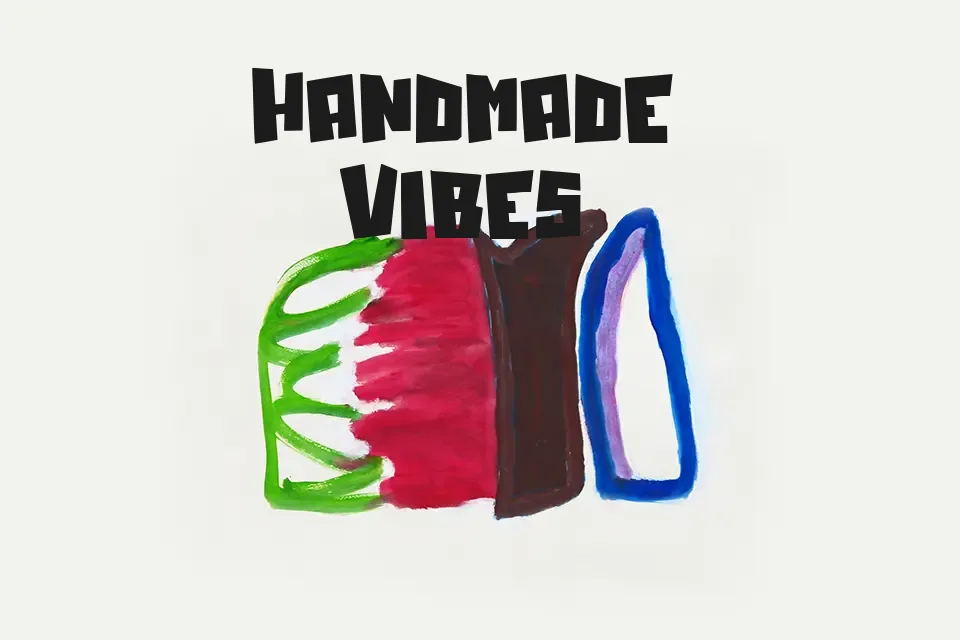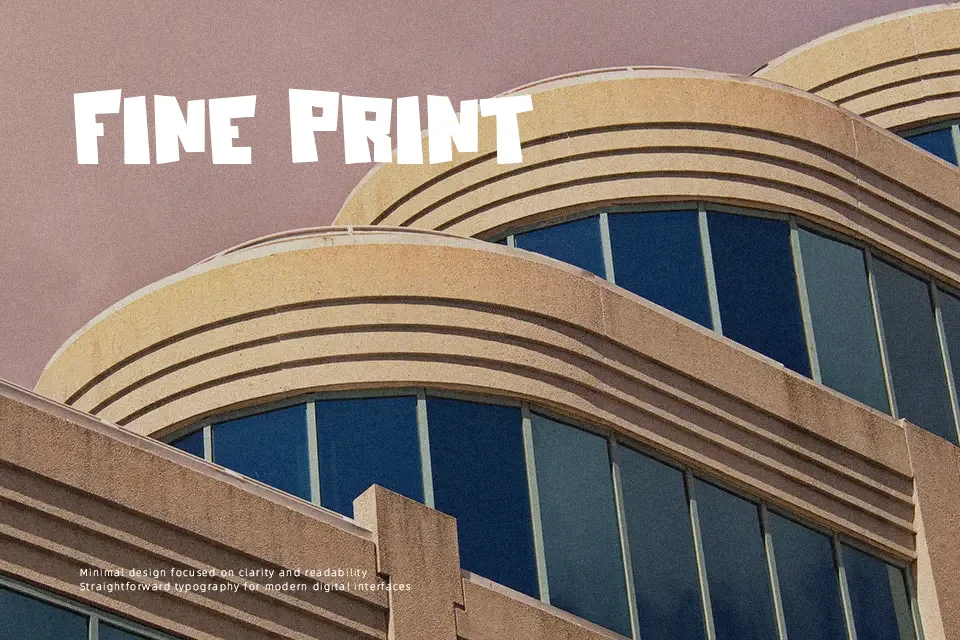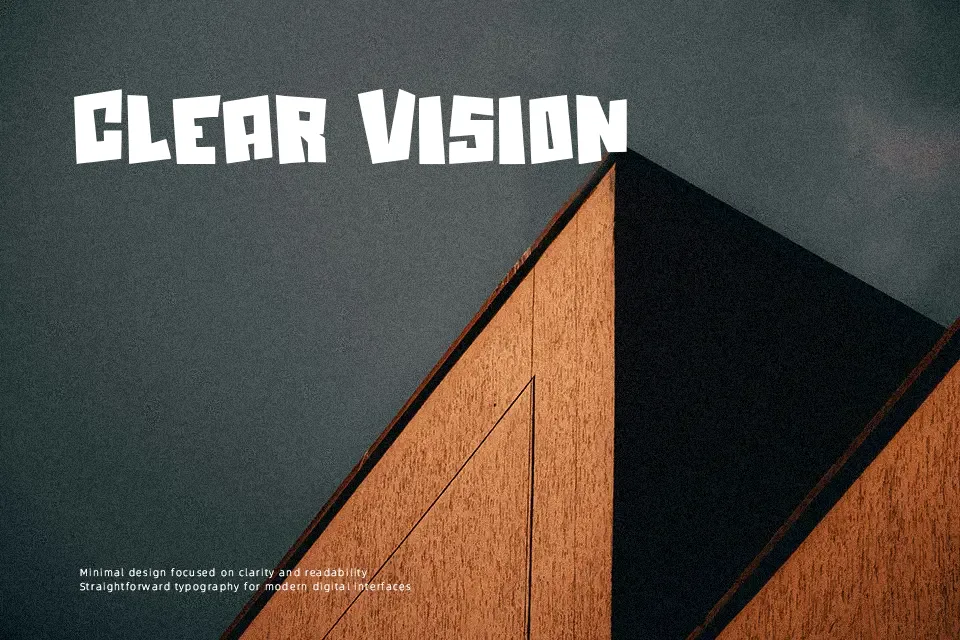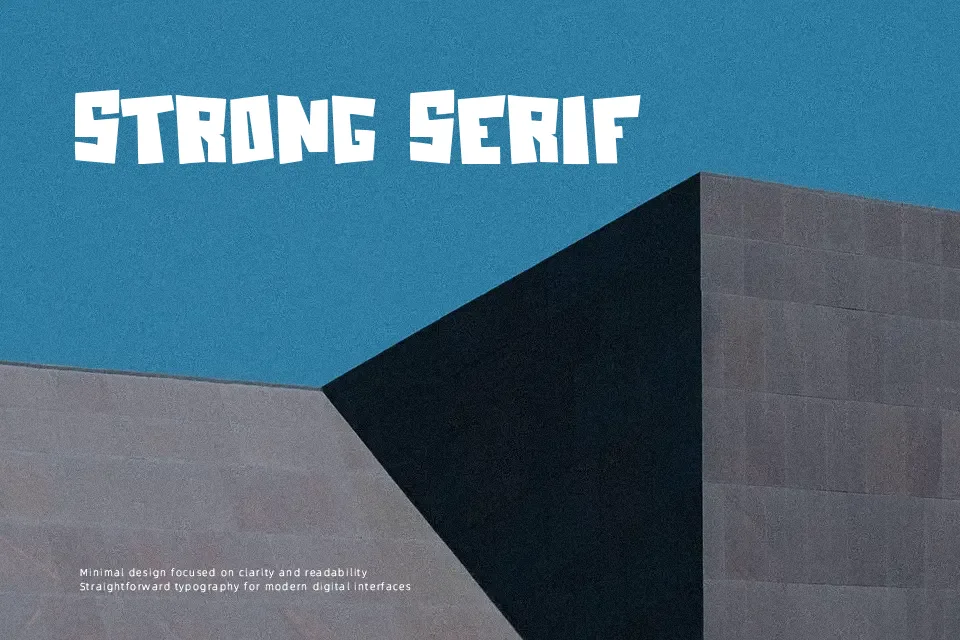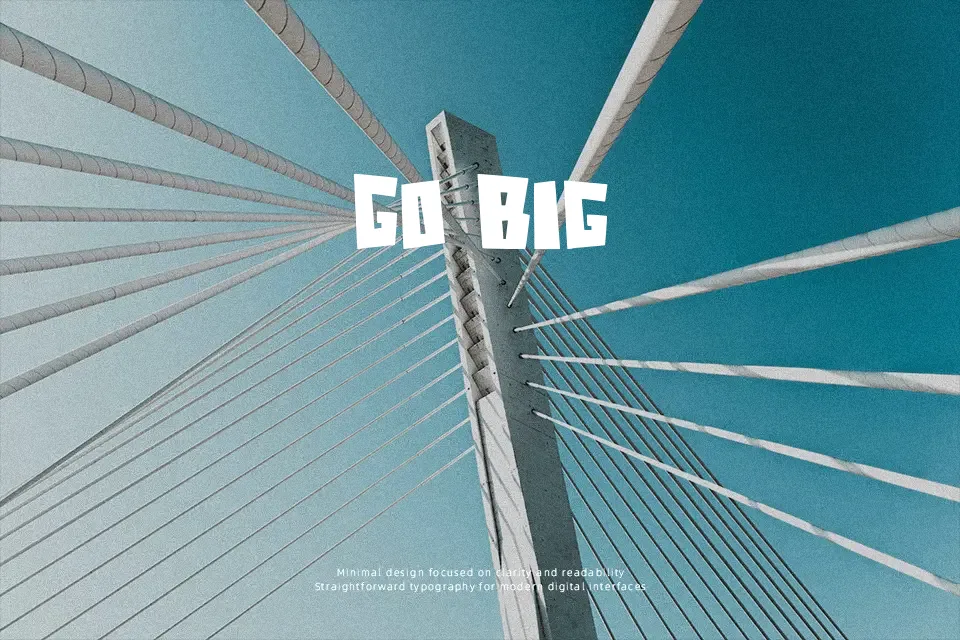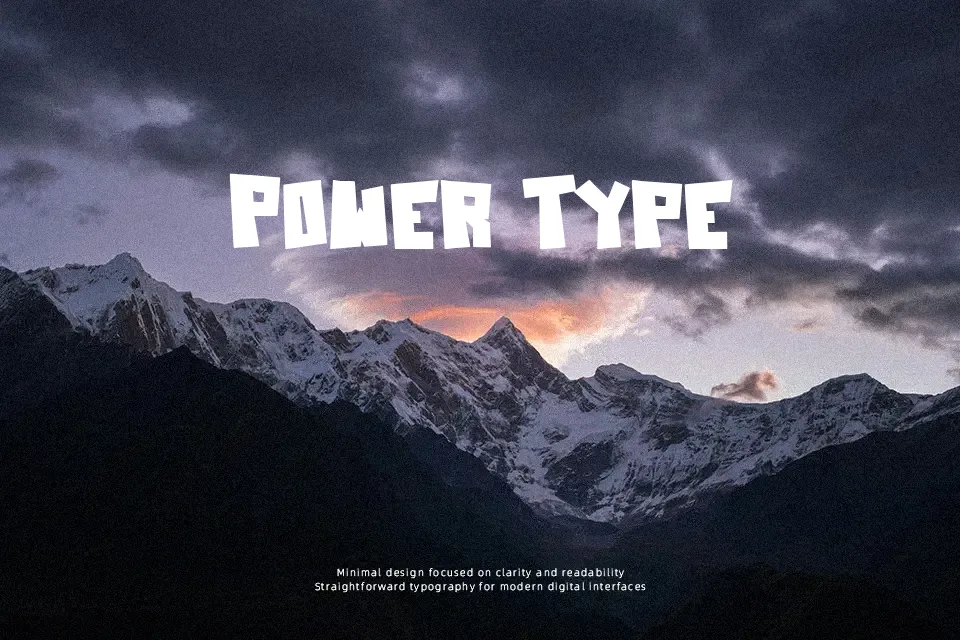
Santa Day Font
Santa Day Font features bouncy, hand-drawn letterforms defined by heavy stroke weights, softened corner joins, and charmingly uneven proportions. Character spacing remains relatively compact, creating a cohesive visual rhythm that enhances readability in prominent headline arrangements. Its lively visual character performs reliably across holiday banners, greeting cards, and youth-oriented event graphics. The dense, animated shapes become difficult to read in continuous body text, so setting prolonged paragraphs with this design is not recommended. The deliberate baseline variations give large display compositions an energetic, cheerful presence.
holiday greeting cards
children book covers
seasonal party banners
festive product packaging
corporate annual reports
technical documentation
mobile interface labels
Perfect for christmas, holiday, and kids, with a cute and cartoon style.